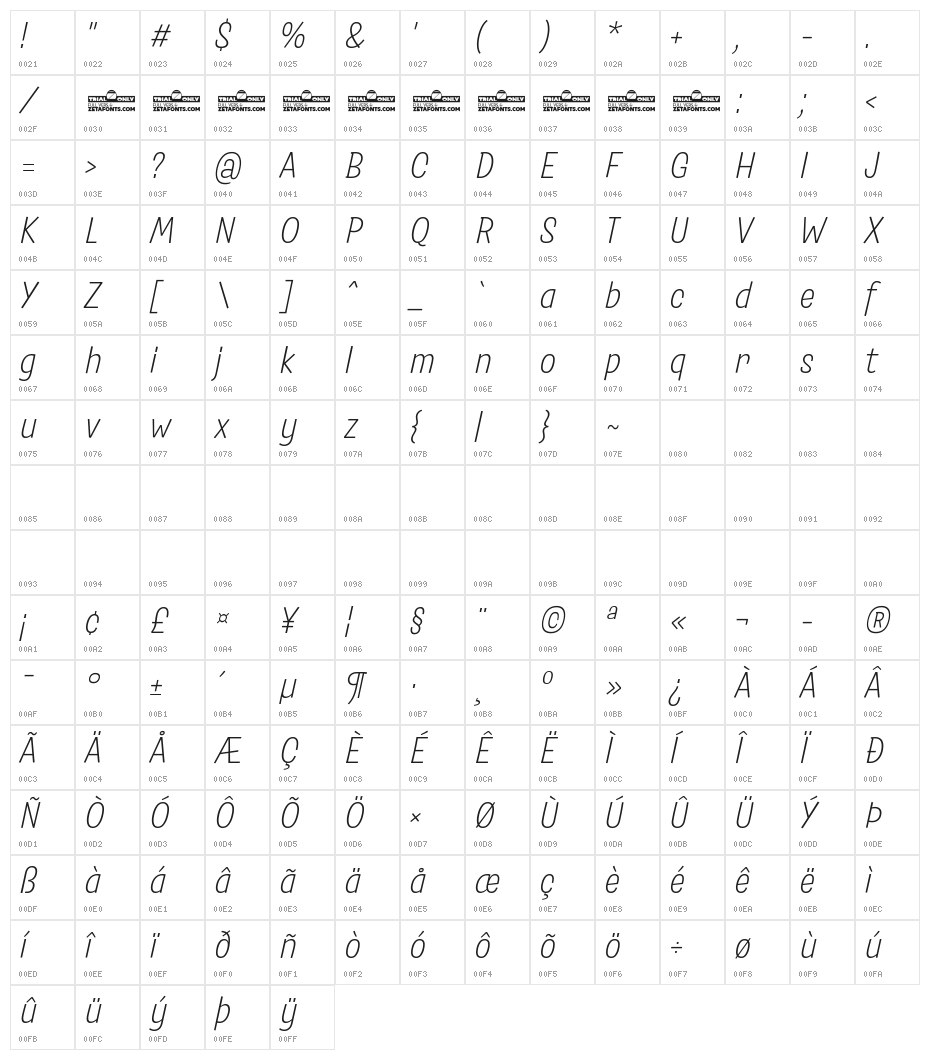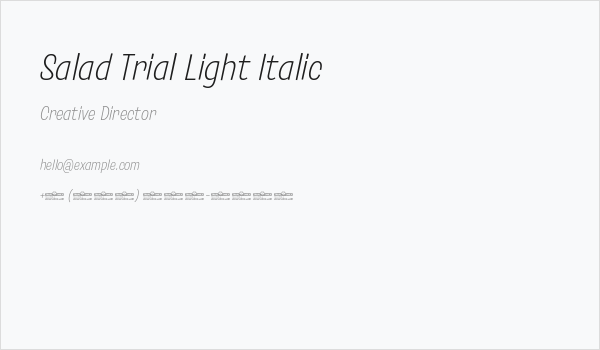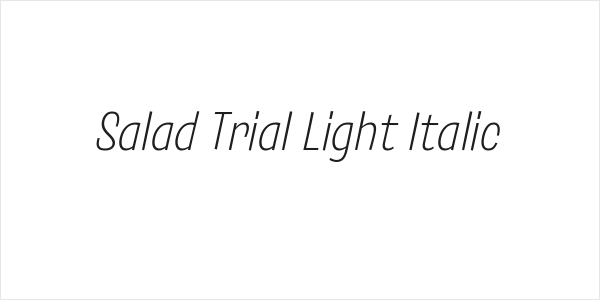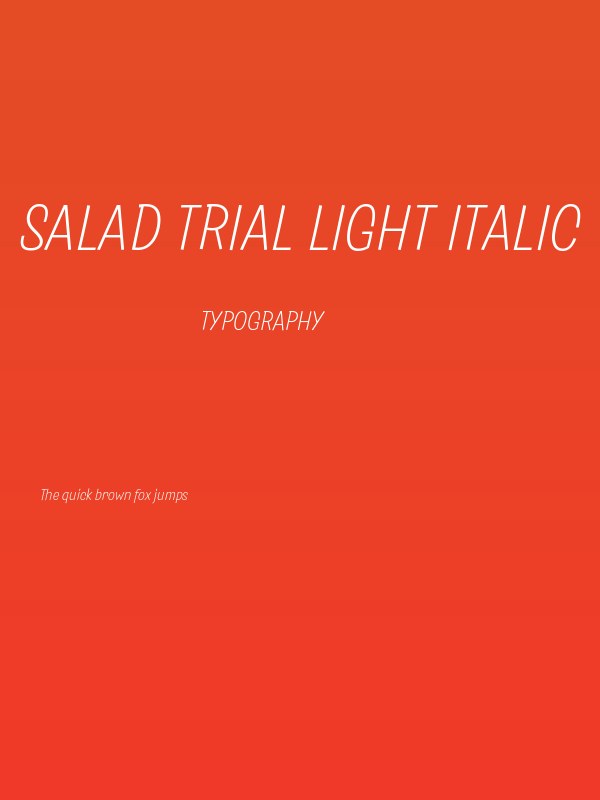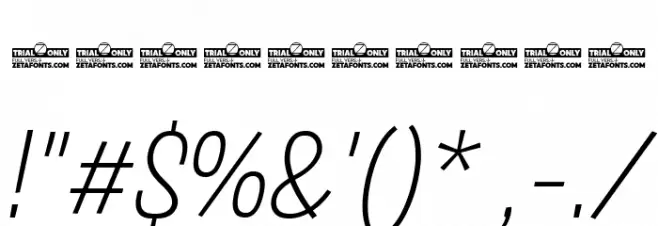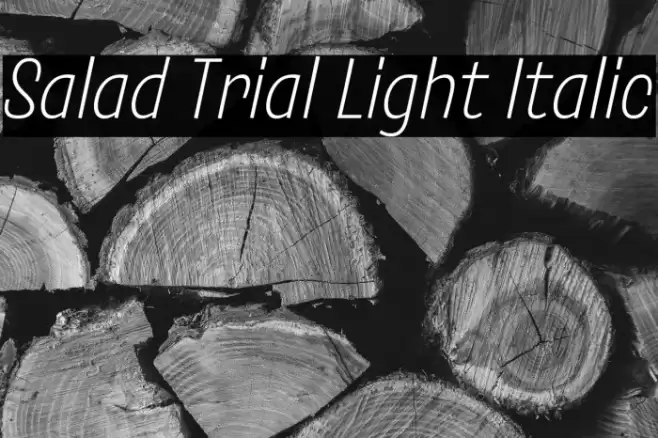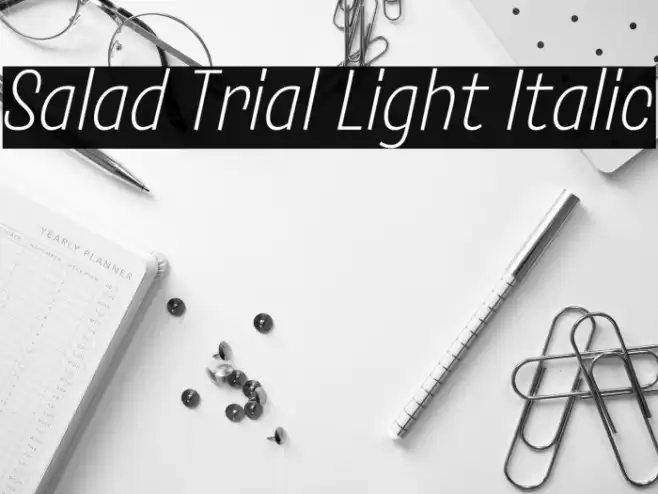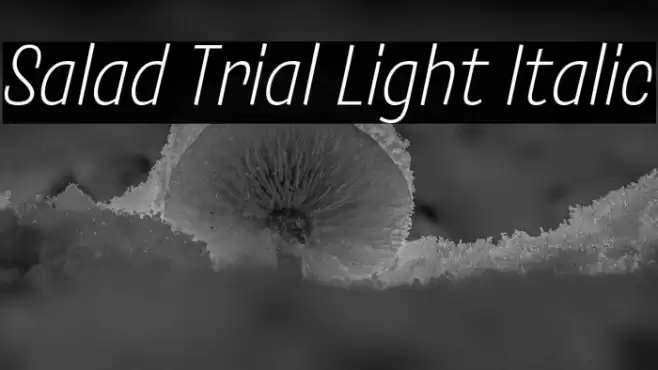
Salad Trial Light Italic Font
Salad Trial Light Italic Description
This font features a sleek and modern design with a light weight and italic style. The characters are elegantly slanted, providing a dynamic and fluid appearance. The uppercase and lowercase letters maintain a consistent style, with smooth curves and clean lines. The numerals and special characters are well-integrated, ensuring readability and versatility. The overall aesthetic is contemporary, making it suitable for a variety of design projects.
| Use Case | Headlines, Body text, Logos |
| Proposed Projects | Ideal for fashion magazines, modern branding, elegant invitations, and stylish websites. |